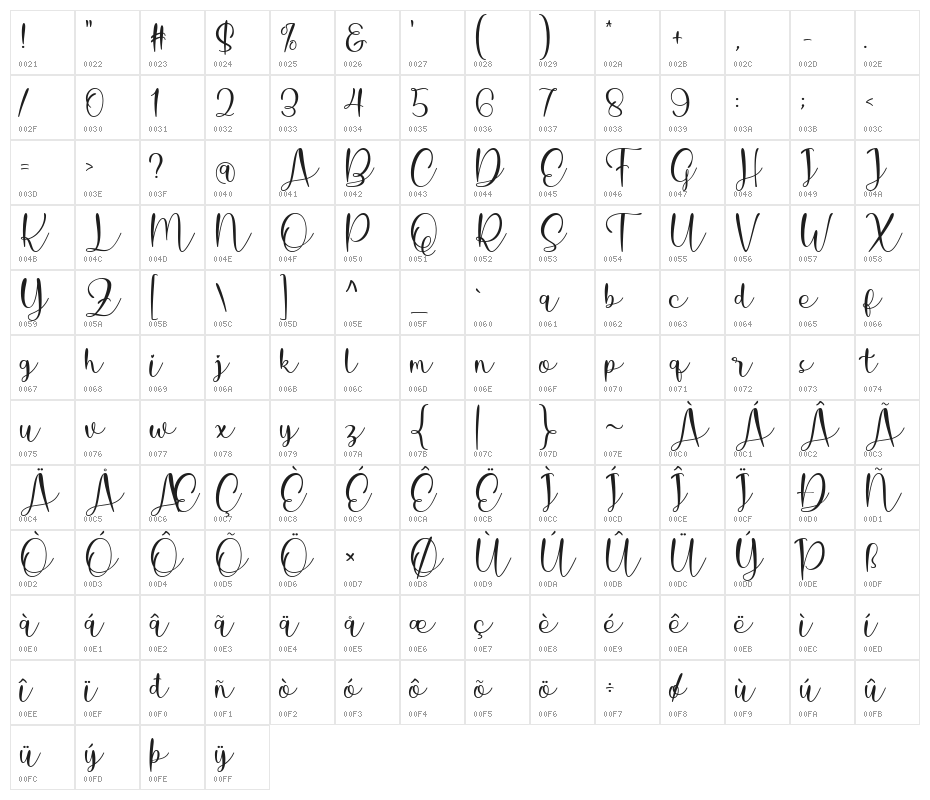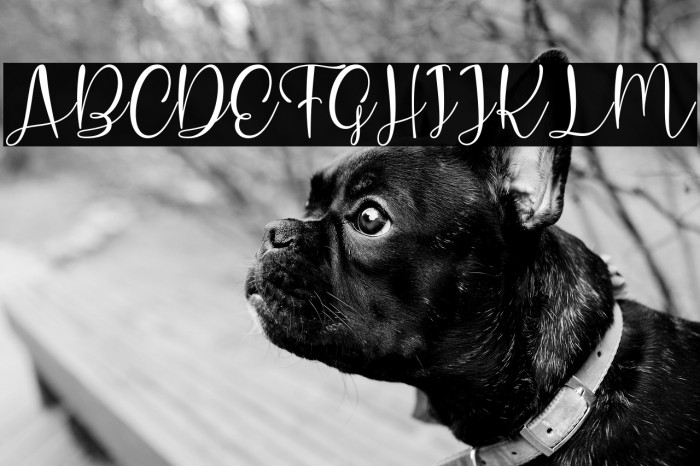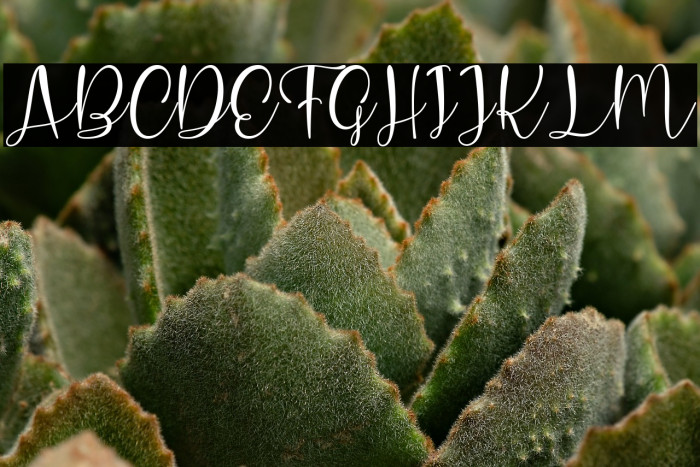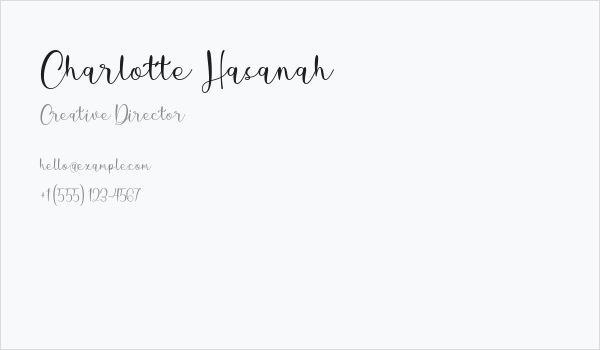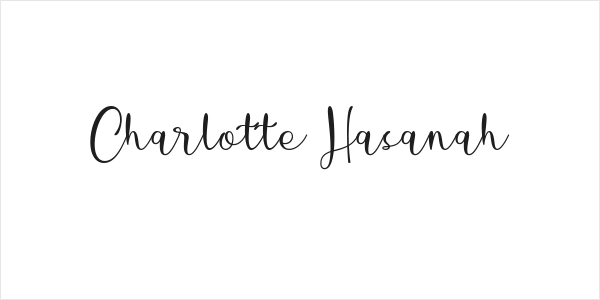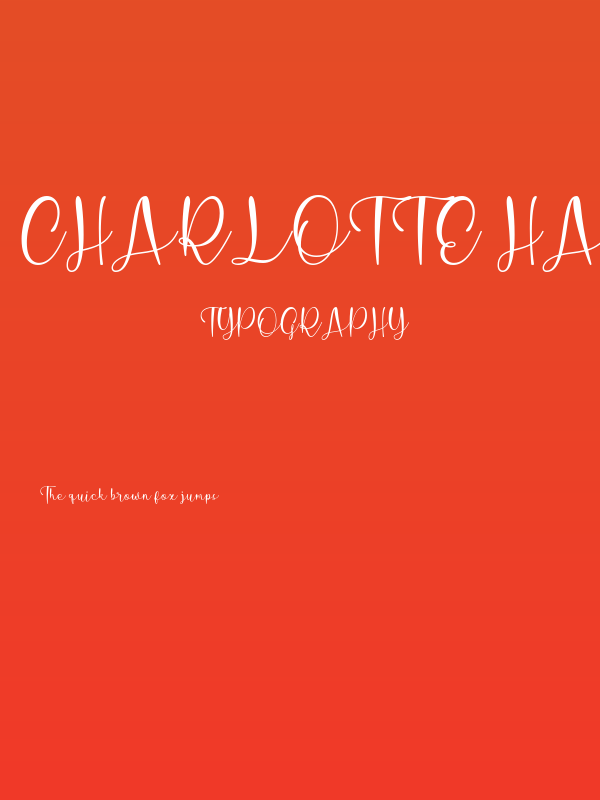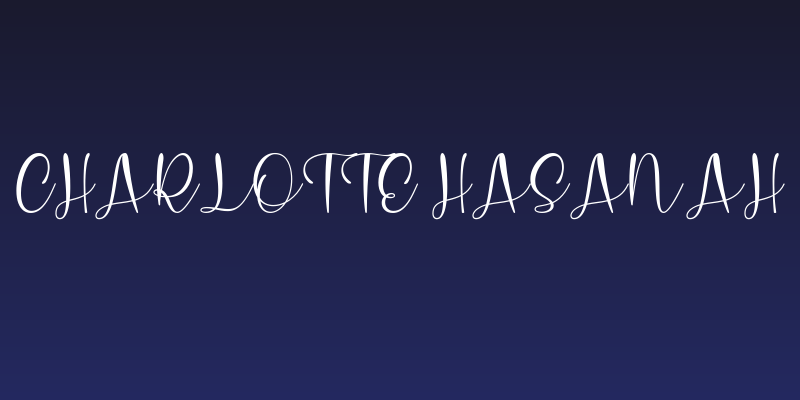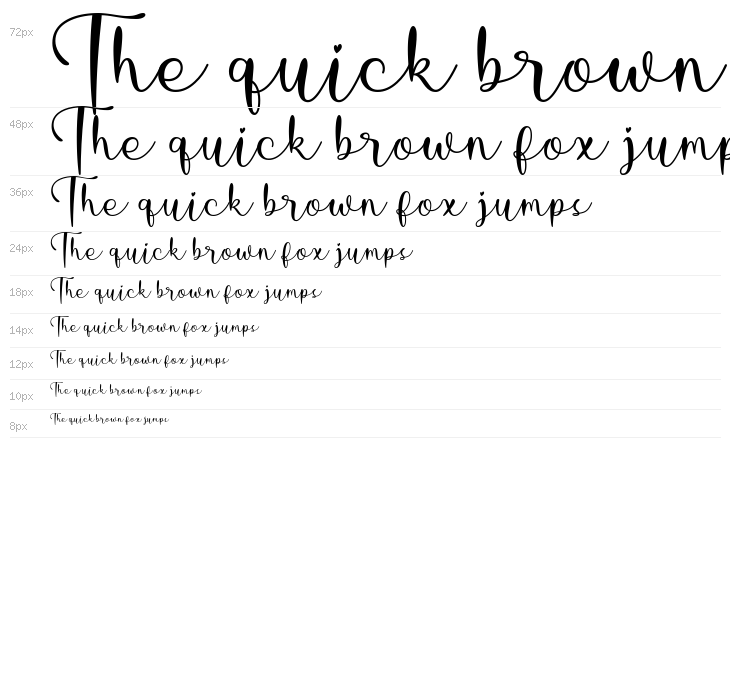
Charlotte Hasanah Font
Charlotte Hasanah Description
This font features an elegant and flowing script style, characterized by its smooth, cursive strokes and a handwritten appearance. The uppercase letters are tall and graceful, with a slight slant that adds to the fluidity of the design. Lowercase letters maintain a consistent flow, with some characters featuring unique loops and flourishes that enhance the overall aesthetic. The numerals are clear and legible, maintaining the script style with rounded edges and a slight tilt. Special characters are creatively integrated, matching the font's elegant and artistic theme. This font is perfect for projects that require a personal touch or a sophisticated, yet approachable, look.
| Overall Style | Elegant, Handwritten |